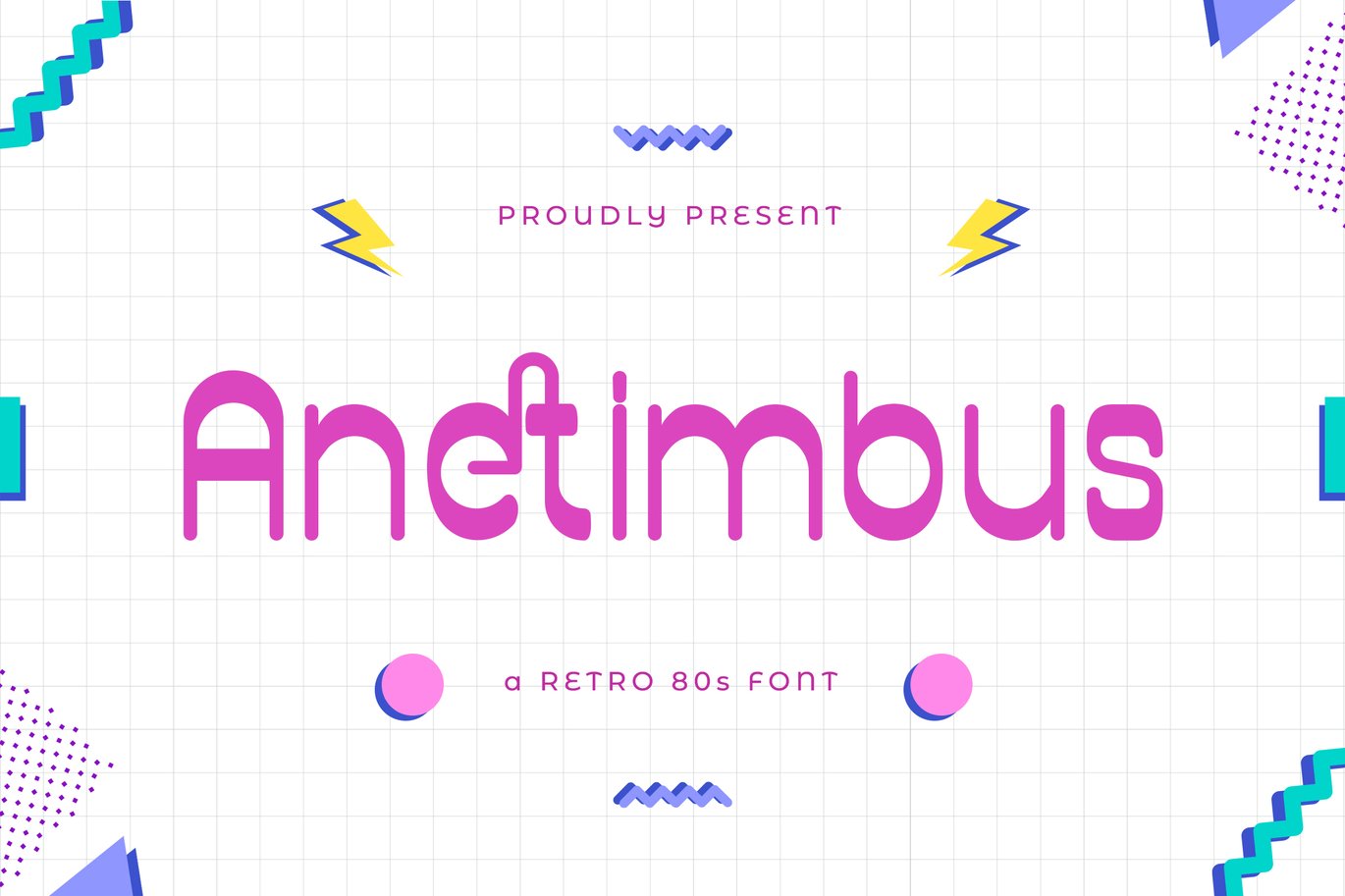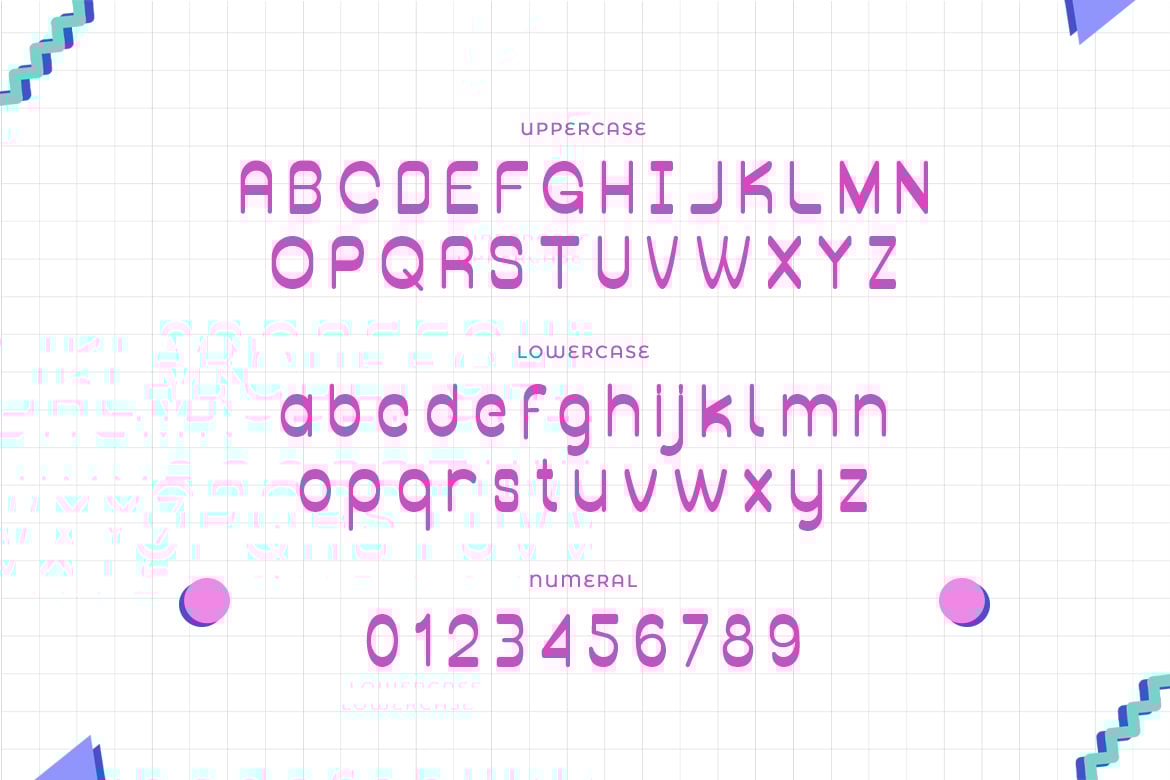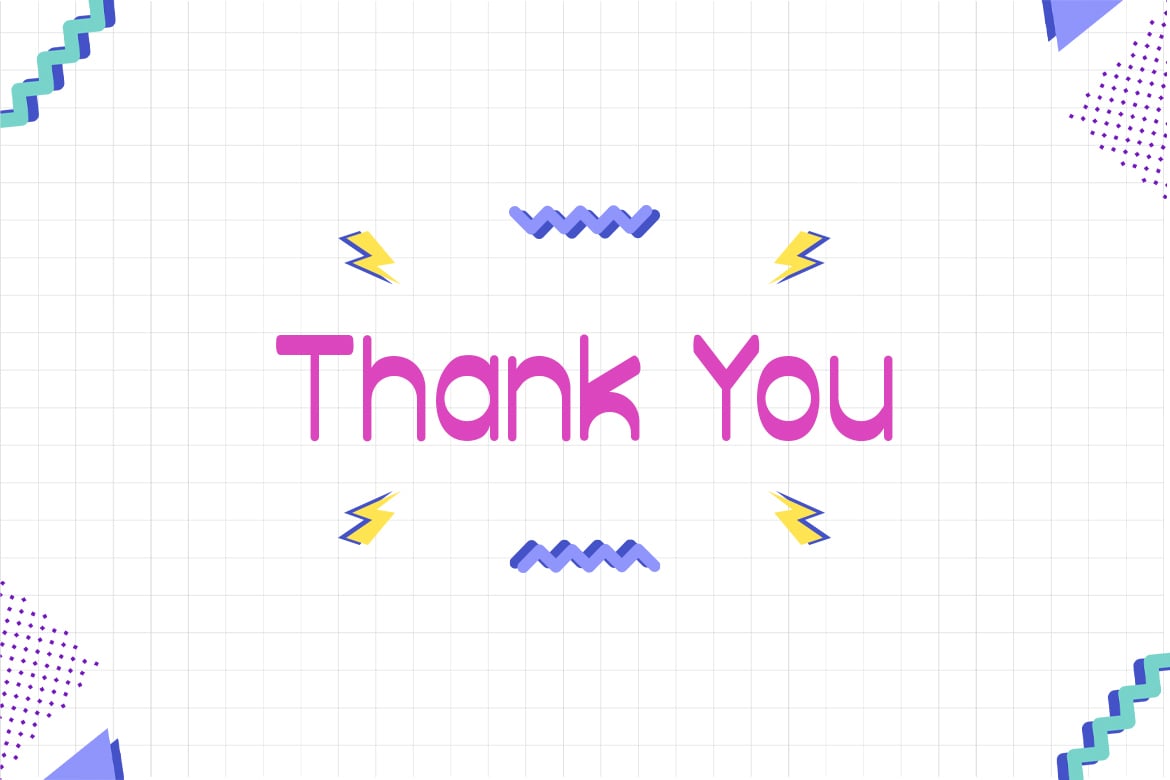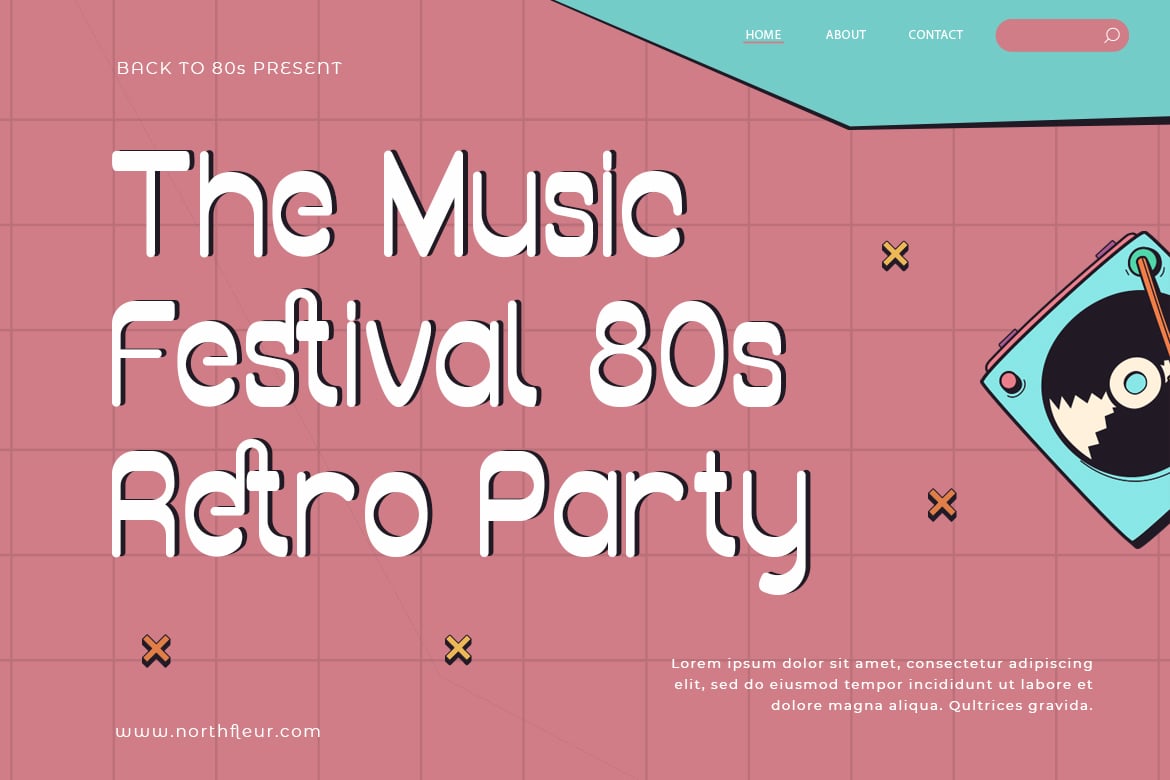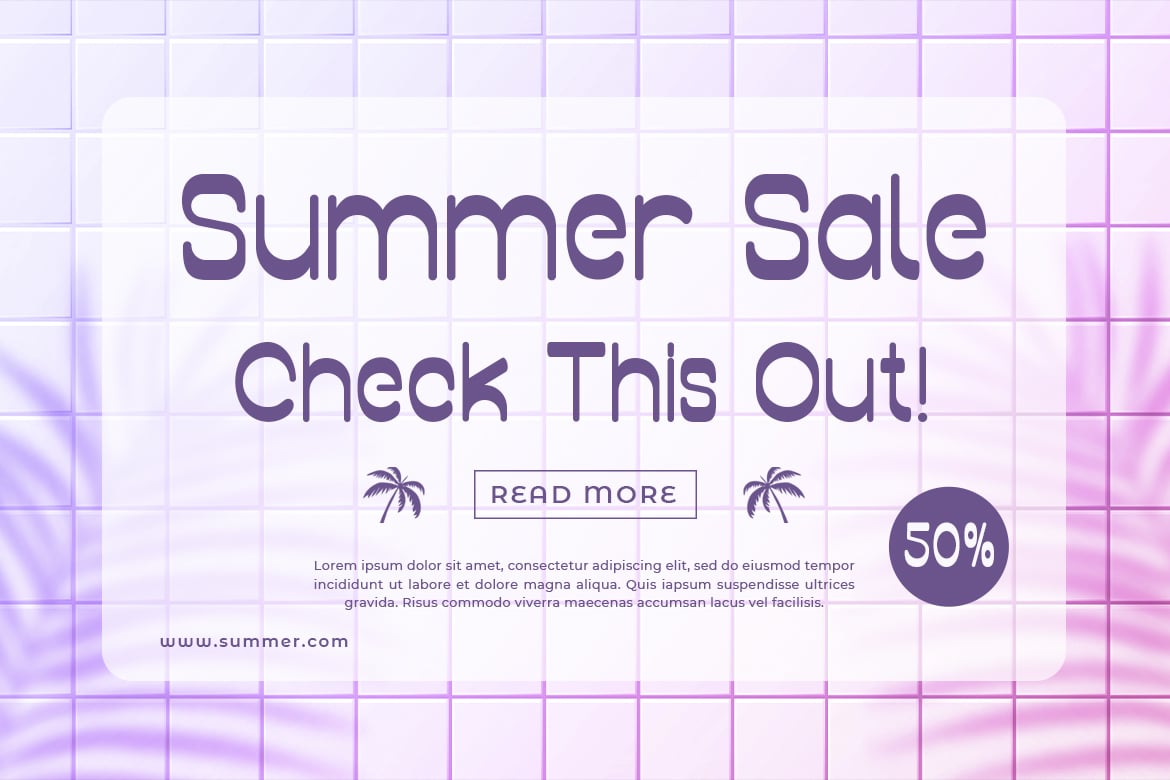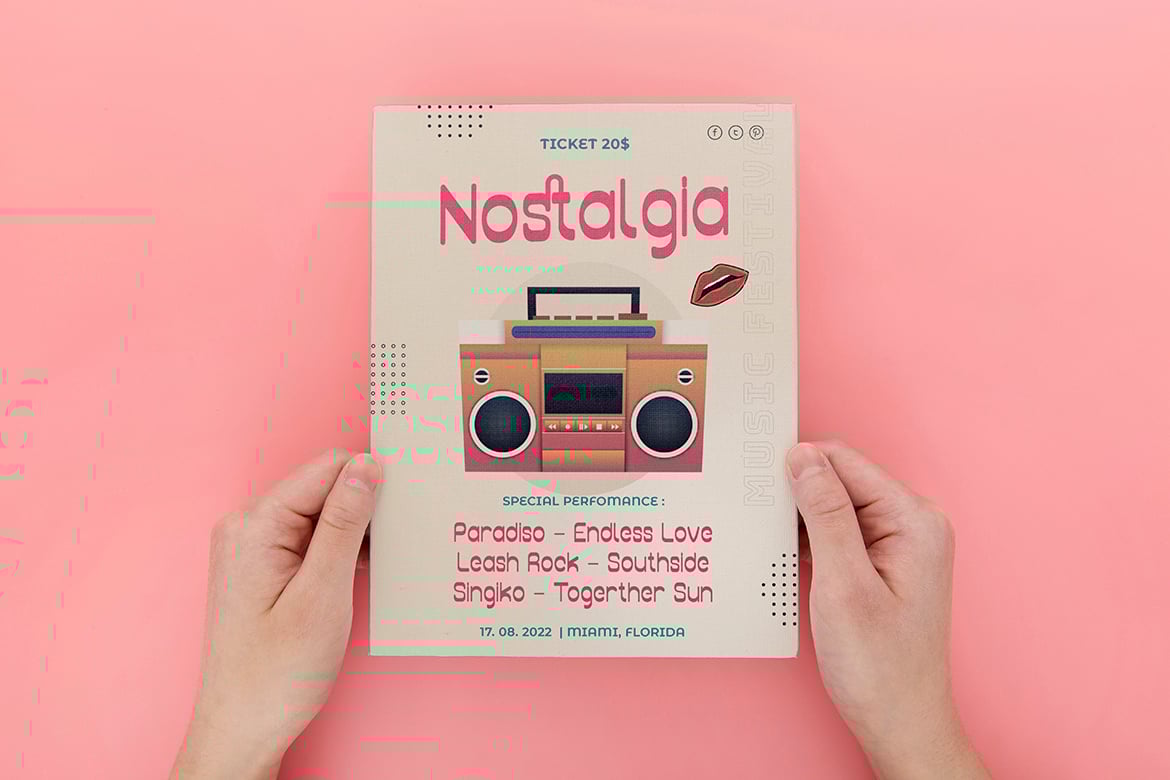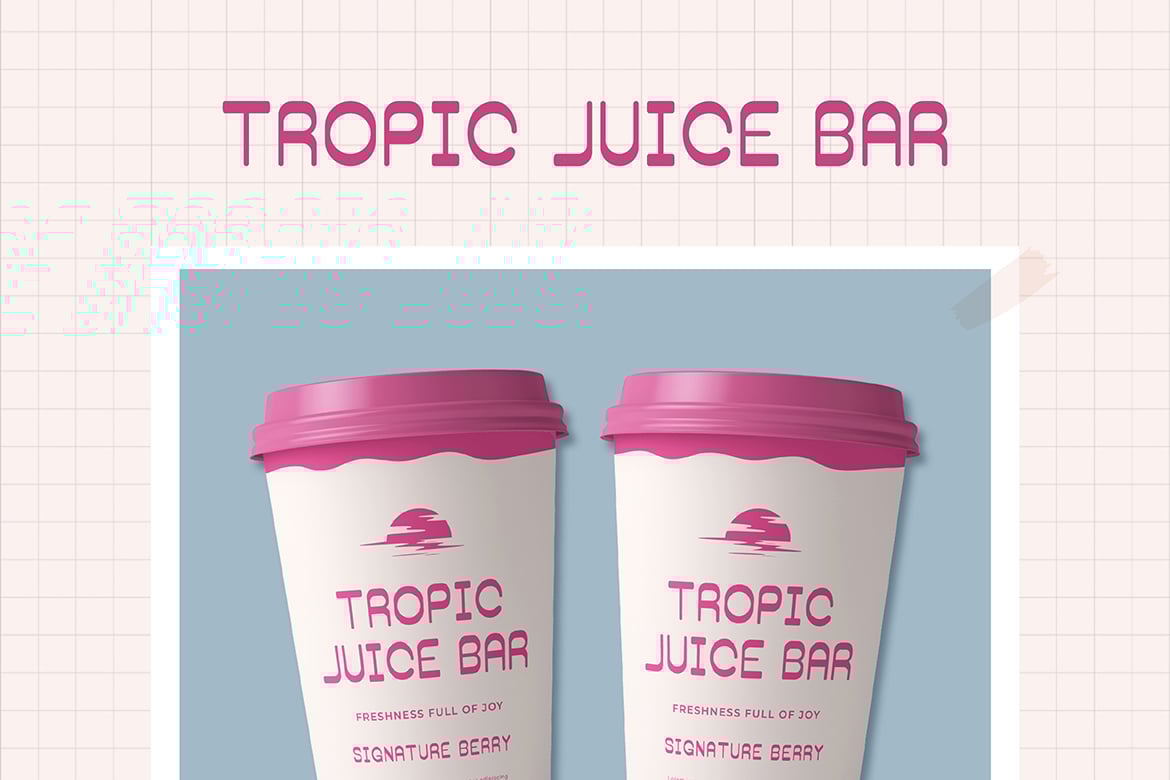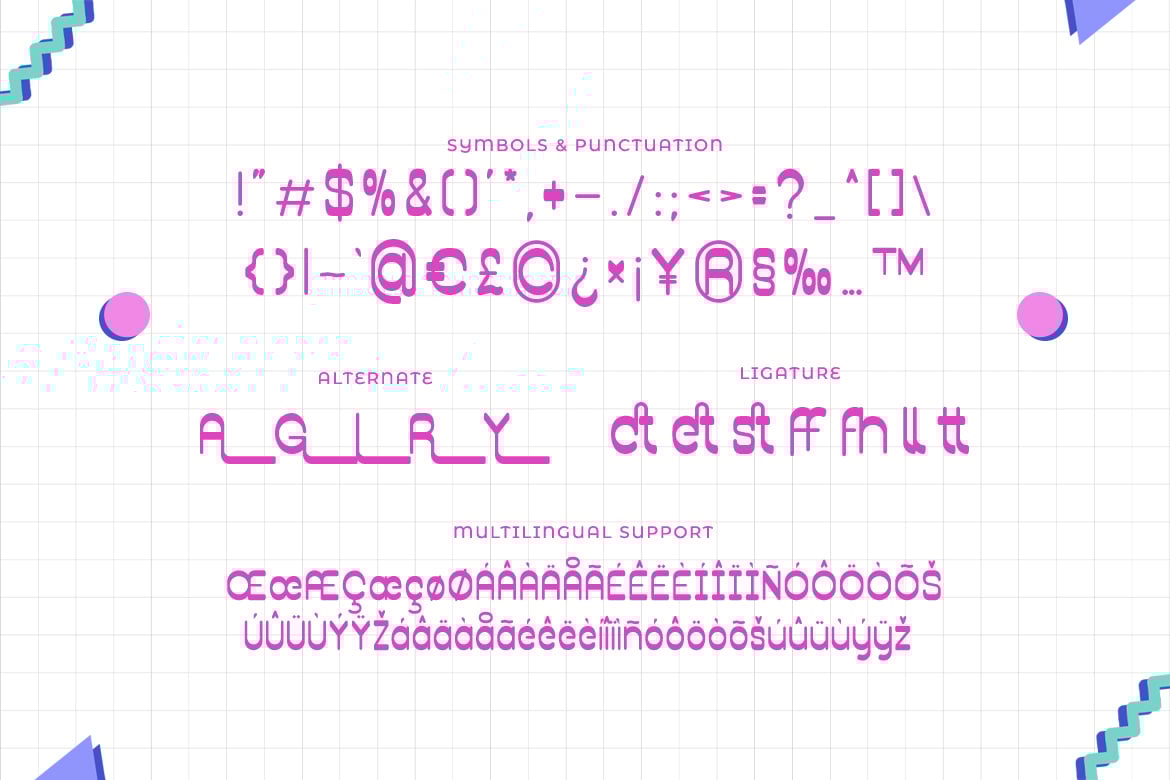
Anetimbus – A Retro 80’s Font
Introducing, Anetimbus. A retro decorative font that will bring you back to 80s feel.
Anetimbus feels playfully nostalgic and delivers an incredible vintage aesthetic.
Use this display font to add that special retro touch to any design idea you can think of!